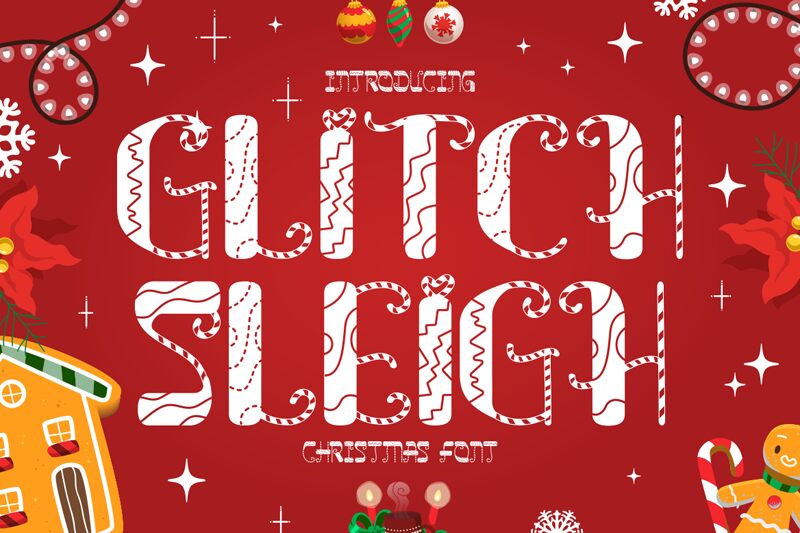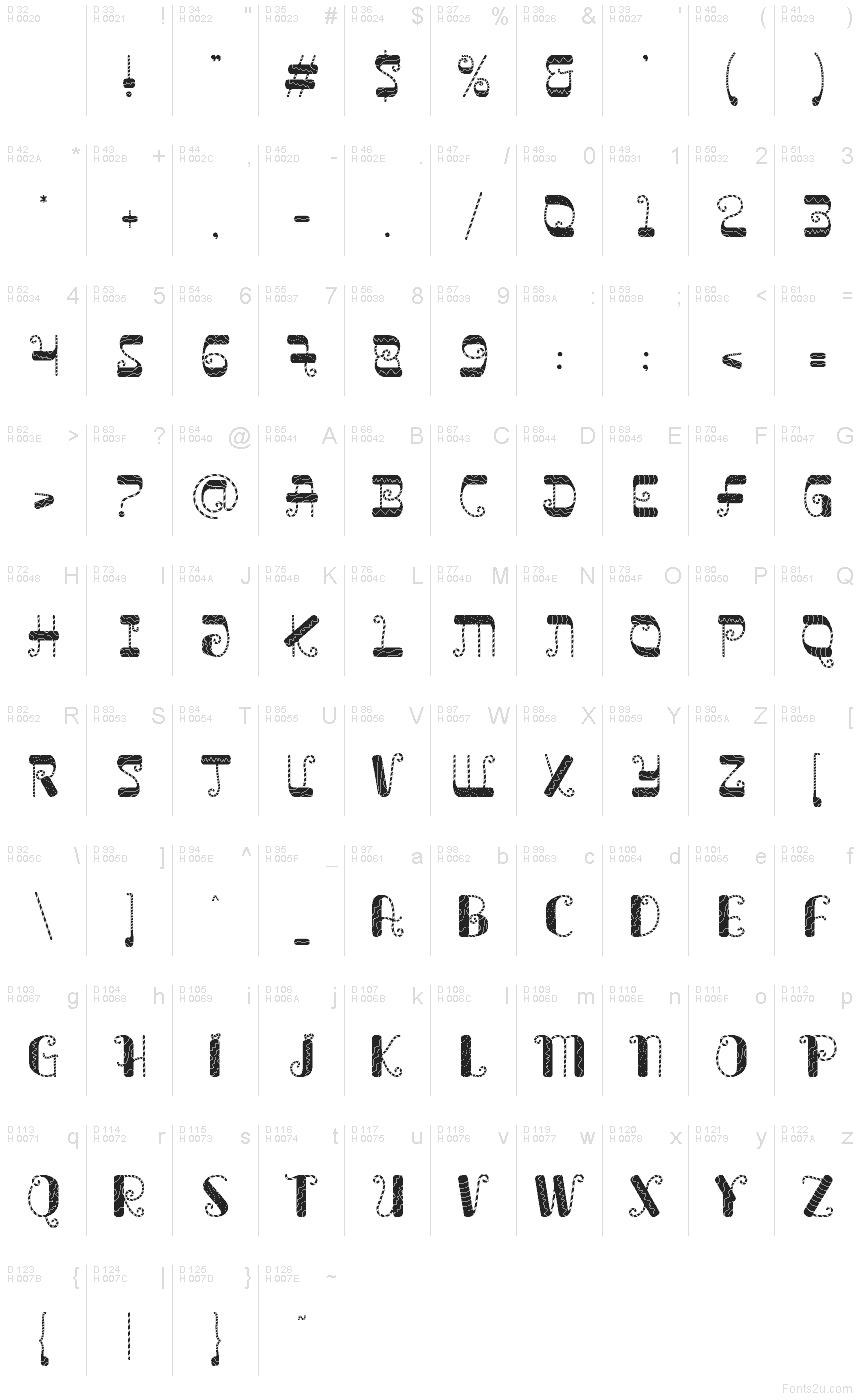
Glitch Sleigh
Glitch Sleigh font by PutraCetol Studio is a free decorative Christmas typeface that mashes up festive cheer with digital chaos. Tall, chunky letterforms are packed with snowy patterns, ornament shapes, and a noisy, glitched texture that feels like a vintage holiday card flickering on an old CRT screen. The result is bold, tactile, and just messy enough to feel fun rather than precious.
Using Glitch Sleigh, you can give Christmas posters, party invites, ugly-sweater graphics, album covers, Twitch overlays, and seasonal social media art a wired-for-winter personality. This free font shines in big, attention-grabbing titles; keep supporting text in a clean sans serif so the glitchy details stay legible and dramatic.